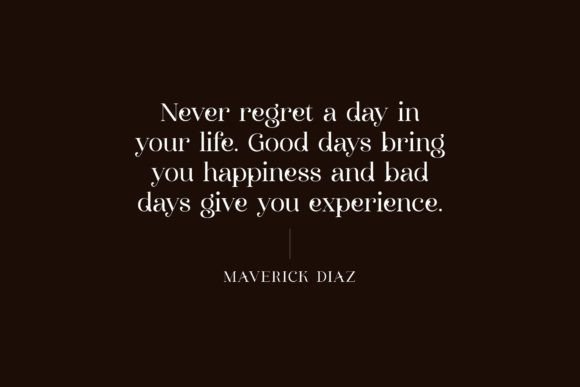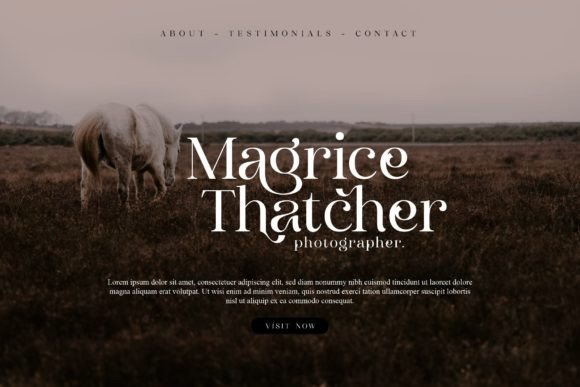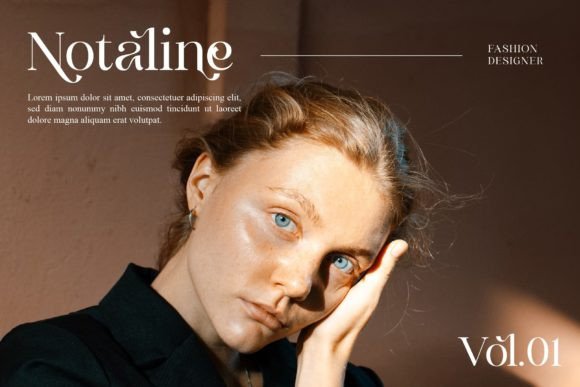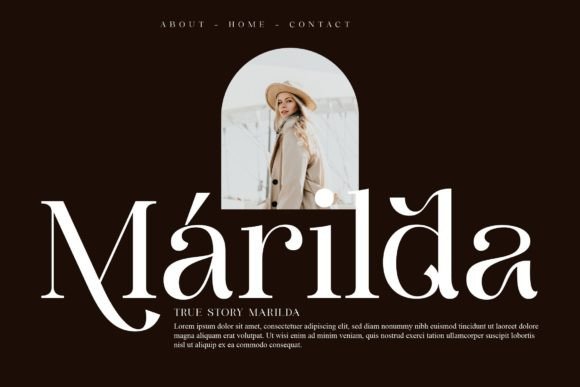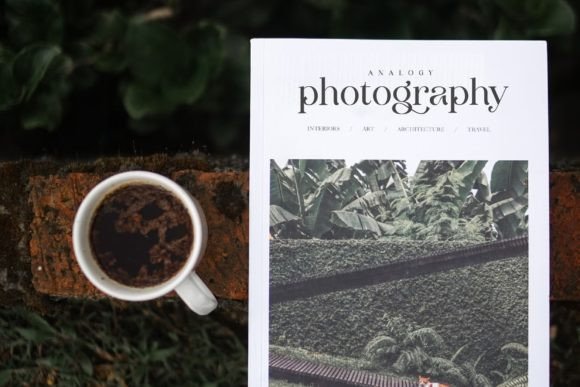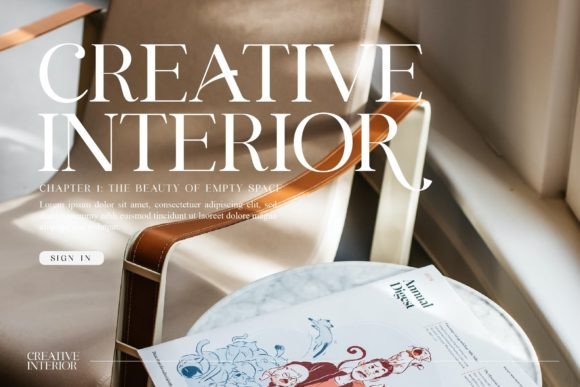
Introducing Clarine Font: The Epitome of Elegance and Sophistication
In the realm of typography, few fonts manage to strike a balance between modernity and classic charm. Clarine Font, however, achieves this delicate equilibrium with remarkable finesse. This modern and classic serif typeface boasts a unique style and a contemporary look, making it an ideal choice for designers and crafters seeking to imbue their projects with an air of elegance and luxury.
Unleashing Creative Potential with Clarine Font
Clarine Font is not just a typeface; it’s a versatile tool designed to elevate your creative projects. Whether you’re working on an elegant logo, a book or movie title design, a fashion brand, a magazine, or even a clothing line, Clarine Font is the perfect companion. Its sophisticated and refined aesthetic ensures that your designs stand out with a distinct sense of luxury and poise.
Key Features of Clarine Font
- Modern and Classic Serif Typeface: Clarine Font merges traditional serif elements with a modern twist, creating a timeless and versatile typeface.
- PUA Encoded: Being PUA (Private Use Area) encoded, Clarine Font offers easy access to all glyphs and swashes. This feature allows designers to explore a wide range of typographic variations, making their work more dynamic and engaging.
- Elegant and Luxurious: The font’s design exudes elegance and luxury, making it perfect for high-end branding, editorial projects, and any application where sophistication is paramount.
Applications of Clarine Font
The versatility of Clarine Font is one of its most compelling attributes. Here are some of the many applications where Clarine Font shines:
- Elegant Logos: Create memorable and sophisticated logos for luxury brands, fashion labels, and high-end services.
- Book and Movie Titles: Add a touch of glamour to book covers, movie posters, and title sequences with Clarine Font’s distinctive style.
- Fashion Brands: Elevate fashion brand identities with a typeface that speaks to elegance, style, and sophistication.
- Magazines and Editorial Content: Use Clarine Font for magazine headers, article titles, and quotes to add a refined touch to your editorial projects.
- Clothing and Apparel: Enhance clothing and apparel branding with a font that conveys luxury and high-end quality.
- Lettering and Quotes: Create stunning lettering pieces and quote designs for social media, posters, and more, with easy access to swashes and glyphs.
Why Choose Clarine Font?
Choosing Clarine Font for your design projects comes with numerous benefits:
- Unique Style: Stand out from the crowd with a typeface that offers a fresh take on classic serif fonts.
- High Versatility: Suitable for a wide range of projects, from branding and advertising to editorial and packaging design.
- Easy to Use: PUA encoding makes it straightforward to access and use the font’s extensive features.
- Timeless Appeal: A well-crafted typeface that will remain relevant and stylish for years to come.
Clarine Font is a remarkable addition to the world of typography, offering designers and crafters a tool that combines modernity with classic elegance. Its versatility, coupled with its luxurious aesthetic, makes it an excellent choice for a myriad of projects. Whether you’re aiming to create a lasting impression with a luxury brand, add sophistication to an editorial project, or simply explore new typographic possibilities, Clarine Font is an exceptional choice. With its PUA encoding and extensive features, Clarine Font invites you to push the boundaries of your creativity and design with unparalleled elegance and sophistication.